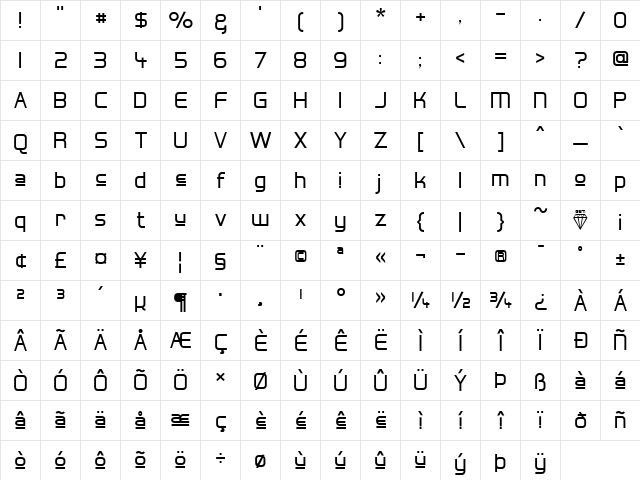
Hall Fetica Upper Regular Font Preview
Hall Fetica Upper Regular
Design Context for Hall Fetica Upper Typeface
Hall Fetica Upper takes a measured approach to typography — its balanced proportions and neutral character make it a reliable workhorse for both digital and print work.